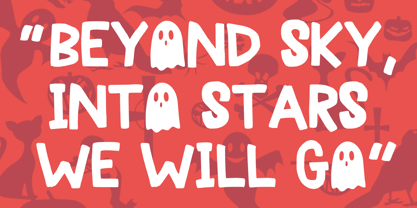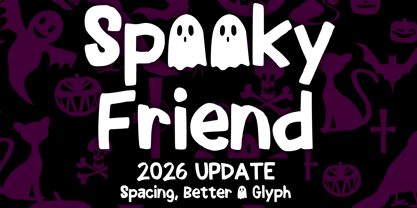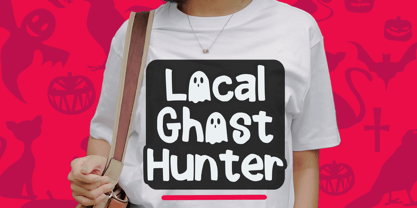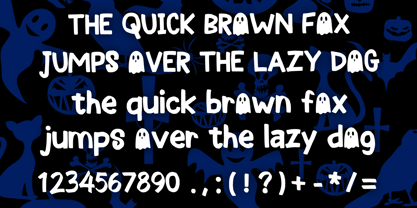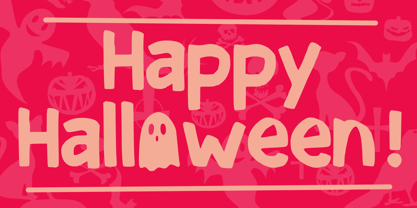
Spooky Friend
by Mvmet
The Spooky Friend Font Family was designed by Gabriel Valentinus and published by Mvmet. Spooky Friend contains 1 styles. More about this family
Spooky Friend is a cool kids friendly ghost display font for your Halloween party! You can use it for anything ranging from t-shirts and clothing, for your scary book designs, Halloween party needs, greeting cards, stickers, posters, banners, or anything that needs a spooky and fun touch. Try it to create fabulous designs and feel the fun and Halloween vibes with it!
Designers: Gabriel Valentinus
Foundry: Mvmet
Spooky Friend